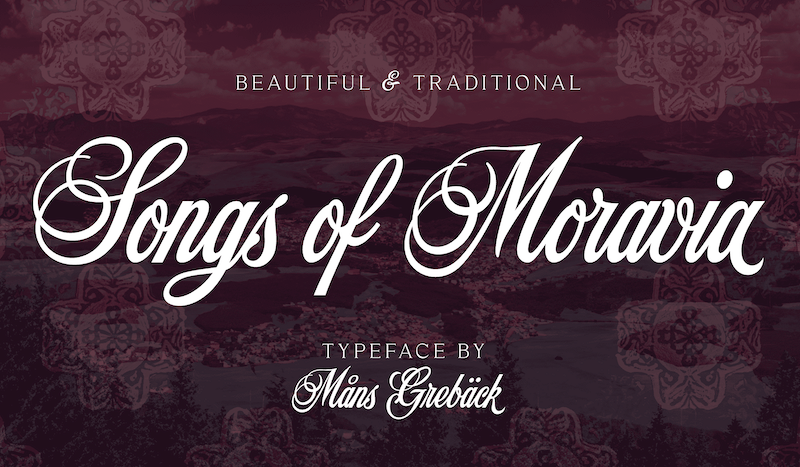
Preview and download Songs Of Moravia Font. Created by Måns Grebäck in Script Calligraphy styles with Free for personal use license.
NOTE: This font is for PERSONAL USE ONLY! To purchase a commercial license, visit: http://mn.sg/songs-of-moravia Songs of Moravia is a beautiful script typeface. Its decorative capitals, adorned with delicate swashes and swirls, evoke the rich heritage and melodious charm of European design. Use underscore _ to make a swash after any word, or multiple underscores for different lengths. Example: Baseball_ For questions, please visit www.mansgreback.com/faq |